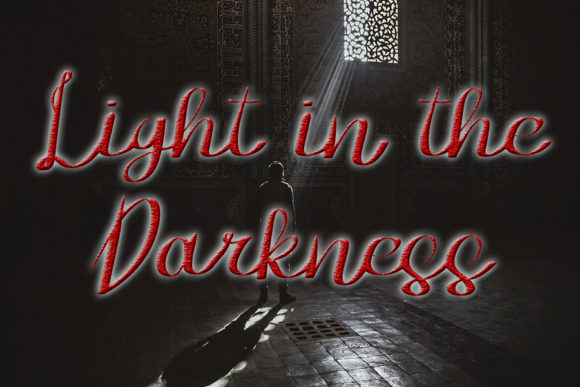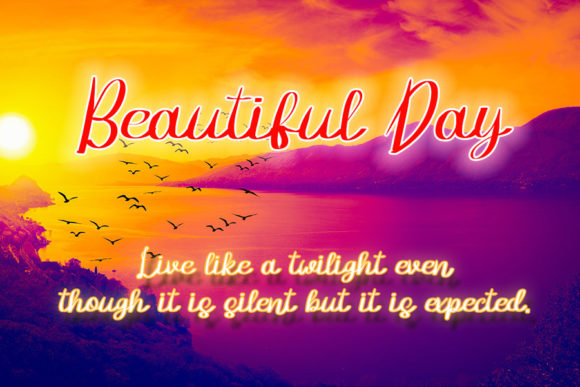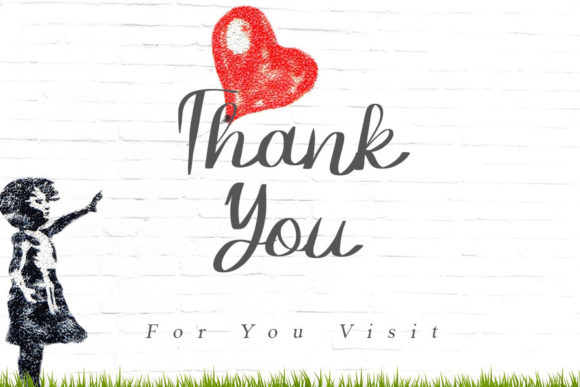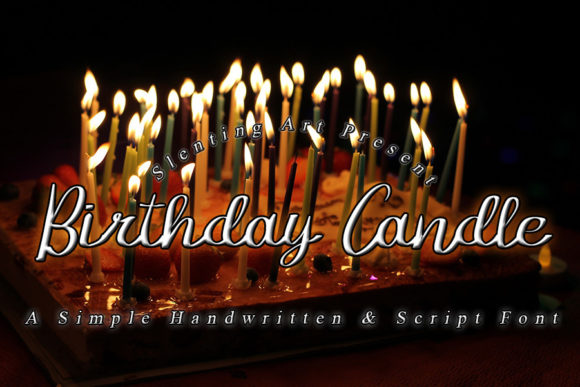
Introducing Birthday Candle Font: Elevate Your Designs with Elegance
Are you looking for a font that exudes sophistication and modernity? Look no further than the Birthday Candle Font, a stunning script font that is sure to elevate your designs to the next level. With its classy, elegant, and refined look, this font is perfect for a wide range of applications, from logos and branding to invitations, stationery, and wedding designs.
What is Birthday Candle Font?
Birthday Candle Font is a beautiful and refined script font that boasts a modern and elegant aesthetic. Its smooth lines, flowing curves, and precise craftsmanship make it an ideal choice for designers and crafters seeking to add a touch of sophistication to their work. Whether you’re creating a logo, branding materials, or social media posts, this font is sure to make a lasting impression.
Key Features of Birthday Candle Font
• Classy and Elegant: Birthday Candle Font features a refined and sophisticated design that is perfect for high-end branding, luxury logos, and elegant wedding designs.
• Modern Look: With its clean lines and modern aesthetic, this font is ideal for designs that require a fresh and contemporary feel.
• Versatile: Birthday Candle Font can be used for a wide range of applications, including logos, branding, invitations, stationery, wedding designs, social media posts, and more.
• Easy to Read: Despite its elegant and refined design, Birthday Candle Font remains highly legible, making it perfect for body text and captions.
Uses for Birthday Candle Font
Birthday Candle Font is an incredibly versatile font that can be used in a variety of contexts. Here are some ideas to get you started:
• Logos and Branding: Create a lasting impression with a custom logo that showcases your brand’s personality and style.
• Invitations and Stationery: Add a touch of elegance to your invitations, greeting cards, and stationery with this beautiful script font.
• Wedding Designs: Make your wedding designs truly unforgettable with Birthday Candle Font’s sophisticated and romantic aesthetic.
• Social Media Posts: Elevate your social media presence with eye-catching graphics and captions that showcase your brand’s personality.
Tips for Using Birthday Candle Font
To get the most out of Birthday Candle Font, here are some tips to keep in mind:
• Pair with Contrasting Fonts: Combine Birthday Candle Font with contrasting fonts to create visual interest and add depth to your designs.
• Use for Headings and Titles: Take advantage of the font’s elegant design by using it for headings and titles that require a touch of sophistication.
• Experiment with Colors: Don’t be afraid to experiment with different colors and textures to add an extra layer of depth to your designs.
In conclusion, Birthday Candle Font is a stunning script font that is sure to elevate your designs to new heights. With its elegant, refined, and modern aesthetic, this font is perfect for designers and crafters seeking to add a touch of sophistication to their work. Whether you’re creating logos, branding materials, or social media posts, Birthday Candle Font is an excellent choice. So why wait? Download Birthday Candle Font today and start creating beautiful, elegant designs that will leave a lasting impression!